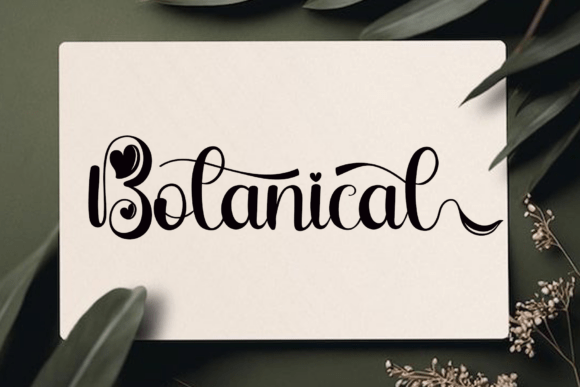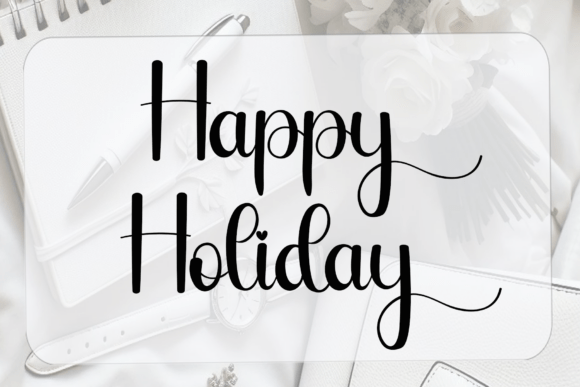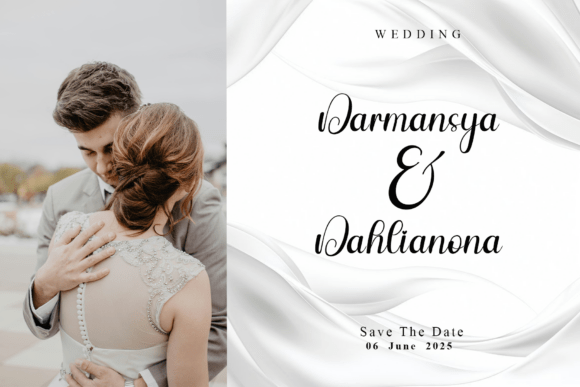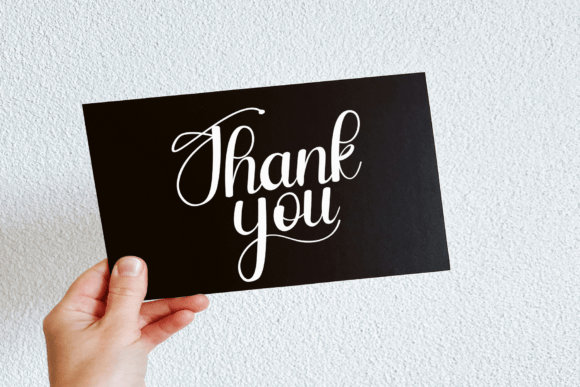
The Sweet Charm of Ballerina Font: A Designer’s Delight
I’ll never forget the time I was working on a wedding invitation project, and my client asked for a font that was ” elegant, yet playful, and totally Instagram-worthy.” I scoured the internet, trying out font after font, but nothing seemed quite right. That was until I stumbled upon the lovely Ballerina Font. ✨ It’s a sweet and cursive handwritten font that has become a staple in my design toolkit, and I’m excited to share its charm with you!
- ✅ Elegant yet approachable: Ballerina Font strikes the perfect balance between sophistication and friendliness, making it perfect for projects that need a touch of whimsy.
- ✨ Versatile: This font looks stunning on a variety of design materials, from branding and logos to wedding invitations, greeting cards, and fashion lookbooks.
- 💕 Romantic and joyful: Ballerina Font adds a delightful touch to any design, making it perfect for projects that require a bit of flair and personality.
While Ballerina Font is an amazing addition to any design project, there are a few things to keep in mind: 🤔
- ⚠️ Legibility at small sizes: As with many script fonts, Ballerina Font can become a bit tricky to read at very small sizes. Make sure to test it out at different scales to ensure it works for your project.
- ⚠️ Overuse of swashes: While the font’s swashes and stylistic alternates are gorgeous, be careful not to overdo it. A little goes a long way in adding visual interest without overwhelming the design.
The Story Behind Ballerina Font
While the true origins of Ballerina Font are unclear, it’s easy to imagine that it was inspired by the world of dance and performance. Perhaps the font’s creator was a designer with a passion for ballet, looking to capture the elegance and beauty of the art form in a typographic style. Whatever the inspiration, the result is a font that’s both lovely and functional.
Q: What type of projects is Ballerina Font best suited for?
A: Ballerina Font is versatile and can be used for a wide range of projects, including branding, logos, wedding invitations, greeting cards, fashion lookbooks, and more.
Q: Is Ballerina Font available in different weights or styles?
A: While Ballerina Font may not have multiple weights or styles, it’s still a beautiful and elegant font that can add a touch of sophistication to your designs.